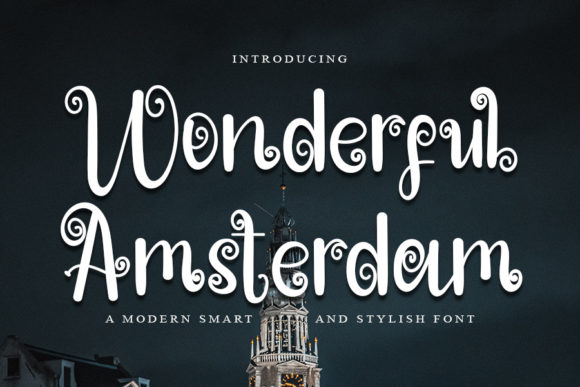
**Dive into the World of Elegance with Wonderful Amsterdam: The Epitome of Style and Sophistication**
In a realm where beauty reigns supreme, allow us to introduce you to Wonderful Amsterdam, the script font that exudes extraordinary grace and allure. Created by the ingenious minds at ONE DESIGN, this masterpiece is a symphony of elegance and simplicity, captivating hearts with its refined charm.
Crafted with meticulous attention to detail, Wonderful Amsterdam boasts a timeless design that transcends the boundaries of time. Its graceful curves and delicate strokes evoke a sense of sophistication, inviting you to embark on a journey of creativity and self-expression. Whether you're designing wedding invitations, crafting heartfelt love letters, or creating captivating social media posts, Wonderful Amsterdam is your perfect companion, transforming your words into works of art.
Immerse yourself in the versatility of Wonderful Amsterdam, a font that effortlessly adapts to a myriad of design styles. Adorn your wedding labels with a touch of elegance, let your business cards radiate professionalism, or inject a spark of creativity into your blog posts. The possibilities are endless, as this versatile font seamlessly blends into any project, becoming an integral part of your visual storytelling.
At ONE DESIGN, we understand the significance of creating fonts that resonate with your soul. Wonderful Amsterdam is meticulously designed to evoke emotions, to stir your imagination, and to amplify your message. With its enchanting aura, this font has the power to transform your creative endeavors into unforgettable experiences.